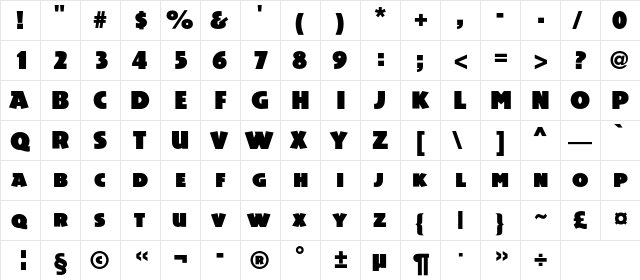
Acsioma Regular
Design Context for Acsioma Typeface
Acsioma takes a measured approach to typography — its balanced proportions and neutral character make it a reliable workhorse for both digital and print work.